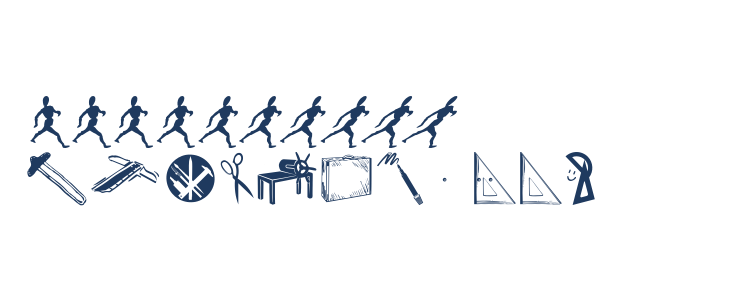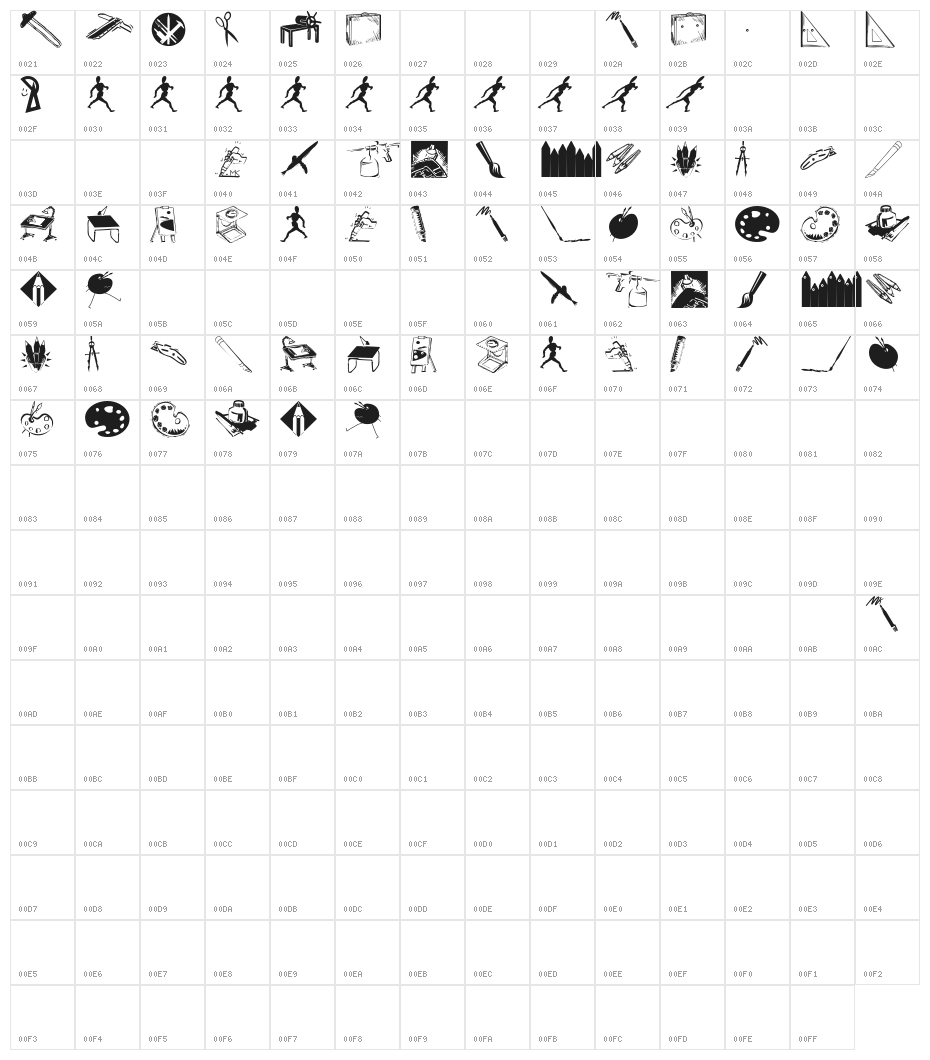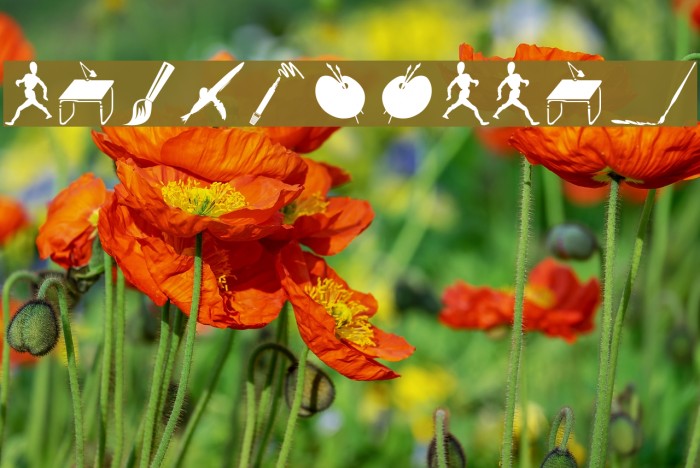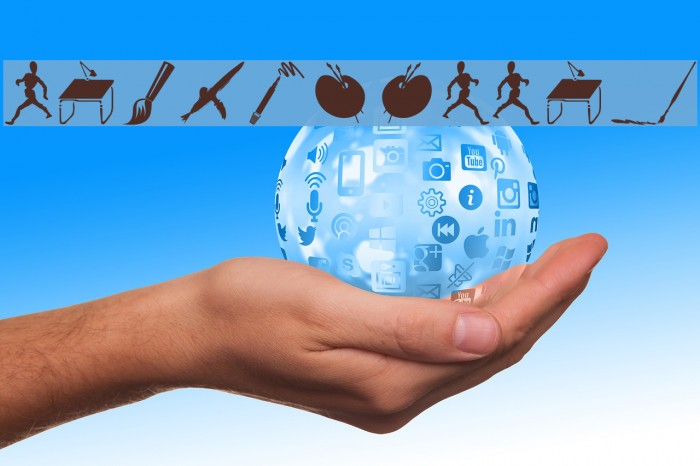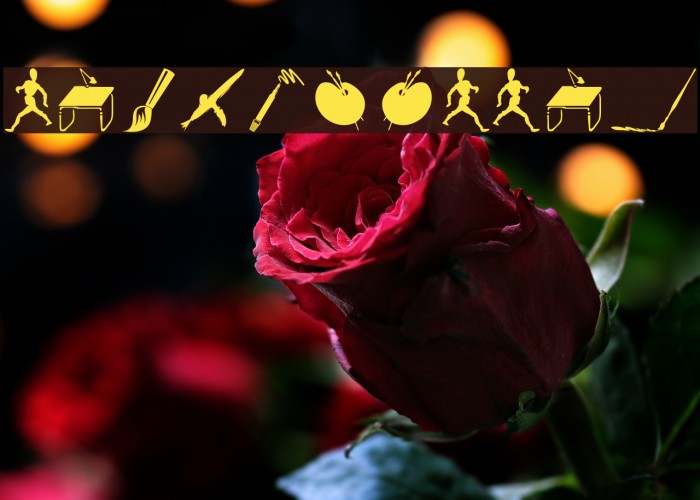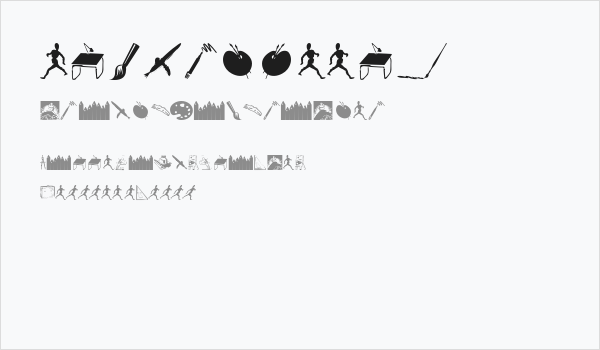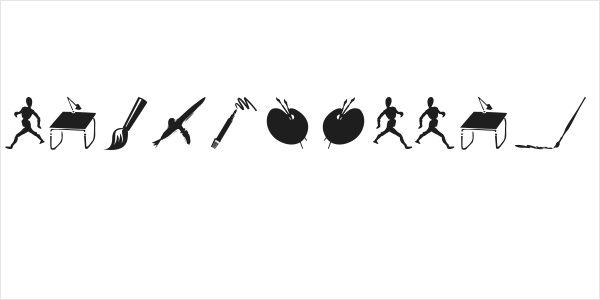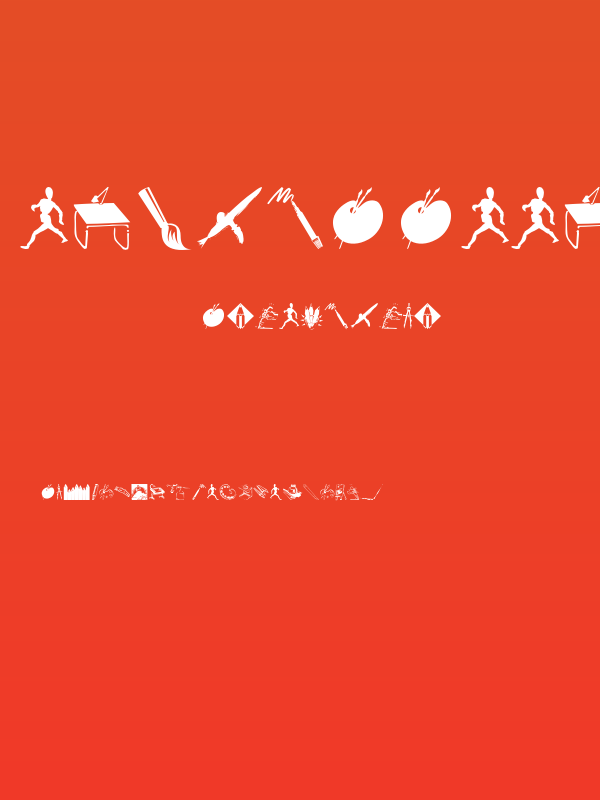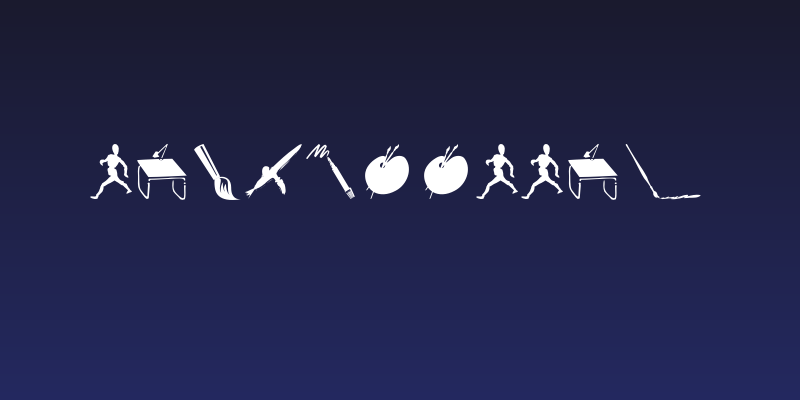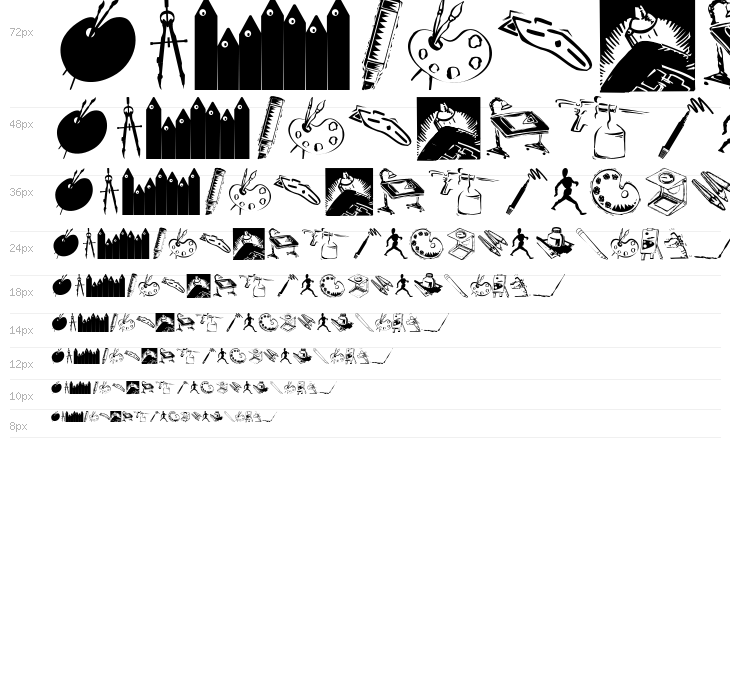
OldArtTools Font
OldArtTools Description
A decorative dingbat font featuring a variety of art tools, artist figures, and creative icons in both solid and outlined styles. Each character is represented by a unique illustration related to art and design, such as brushes, palettes, easels, and drawing instruments.
| Overall Style | Decorative, Playful, Artistic |
| Use Case | Icons, Decorative elements, Themed headers |
| Proposed Projects | Ideal for art class materials, creative event posters, educational worksheets, scrapbooking, and design portfolios. |